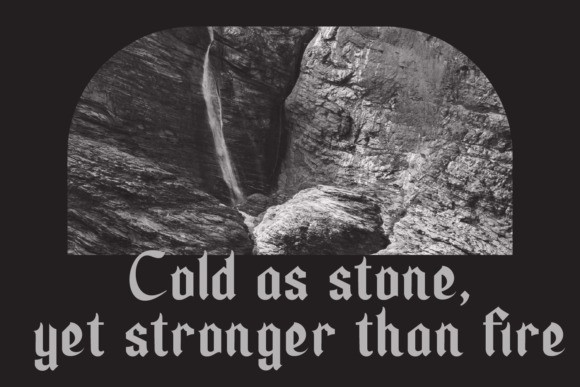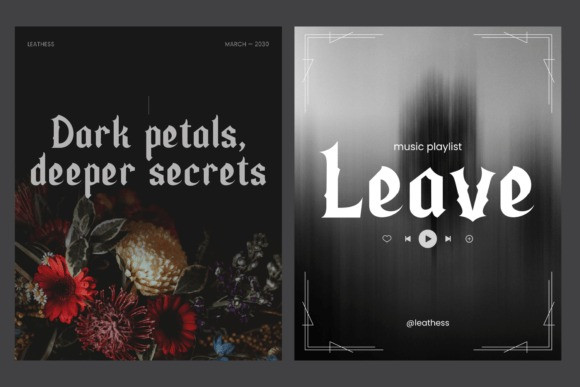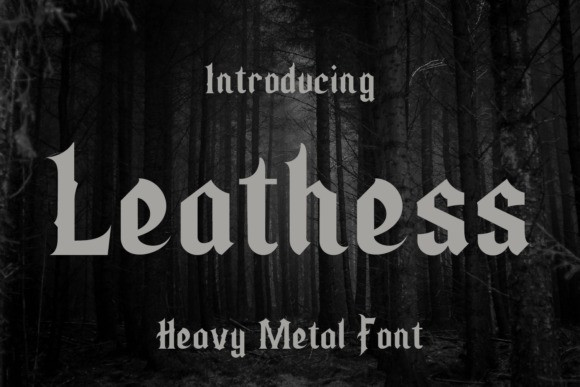
Leathess Font
Leathess Font – a pure expression of Metal Brutalist typography. This potent, daring typeface encapsulates the rugged nature of heavy metal aesthetics, ensuring your creation commands the attention it merits. Leathess seamlessly infuses an enchanting aura of persistence and power into your work, charging it with an energy that insists on being acknowledged.